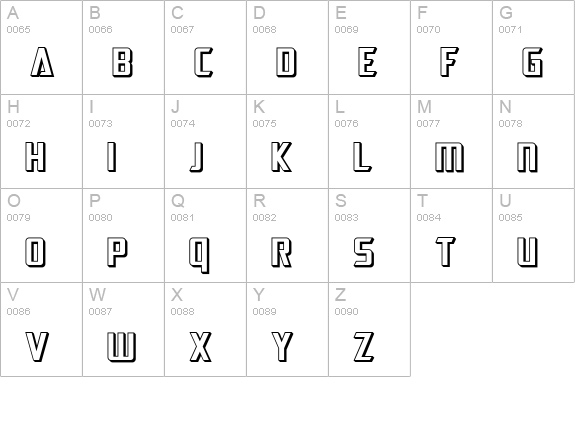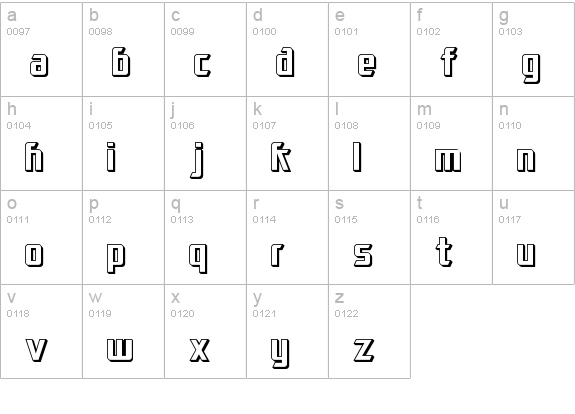
SF Electrotome Shaded Font Details
Introducing SF Electrotome Shaded, a stunning and innovative font that effortlessly combines futuristic elements with a touch of elegance. This typeface is the epitome of modernity, designed to captivate and inspire with its sleek lines and electrifying presence. SF Electrotome Shaded boasts a unique and dynamic shading effect, adding depth and dimension to each letterform. This intricate detailing creates a mesmerizing visual display, making it perfect for eye-catching headlines, logos, and branding projects. With its bold and daring aesthetic, this font demands attention and leaves a lasting impression. What sets SF Electrotome Shaded apart is not only its striking design but also its accessibility. It is proudly offered as a free download exclusively at FontsMarket.com, allowing designers, artists, and enthusiasts alike to experience the sheer brilliance of this font without any restrictions. This generous offering ensures that creativity knows no bounds, empowering individuals to bring their visions to life. Whether you're working on a sci-fi inspired project, a cutting-edge advertisement, or simply looking to add a touch of modern sophistication to your designs, SF Electrotome Shaded is the perfect choice. Its versatility and visually striking appearance will effortlessly elevate any composition, leaving a lasting impact on your audience. Don't miss out on the opportunity to download SF Electrotome Shaded for free at FontsMarket.com. Unleash your creativity and embark on a journey of design excellence with this extraordinary font.